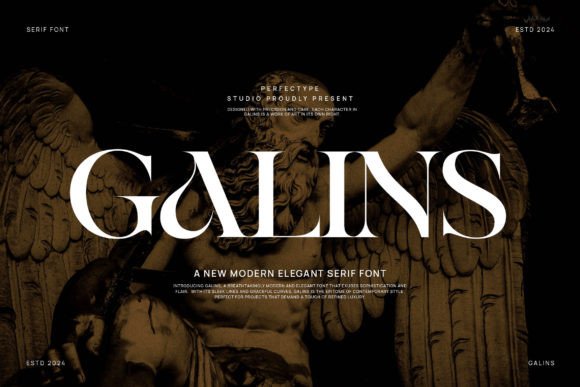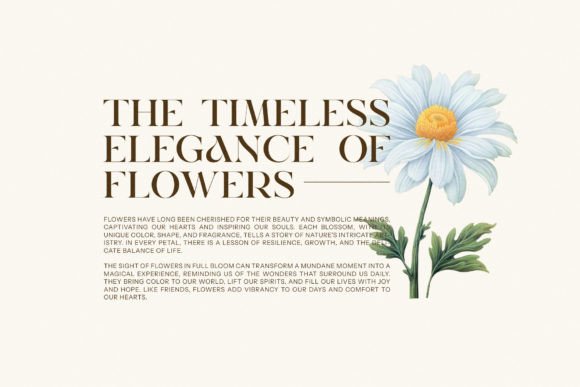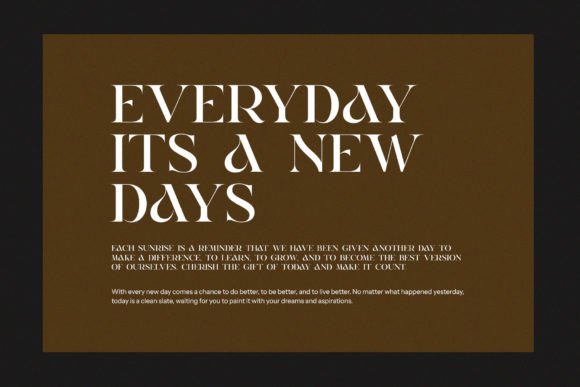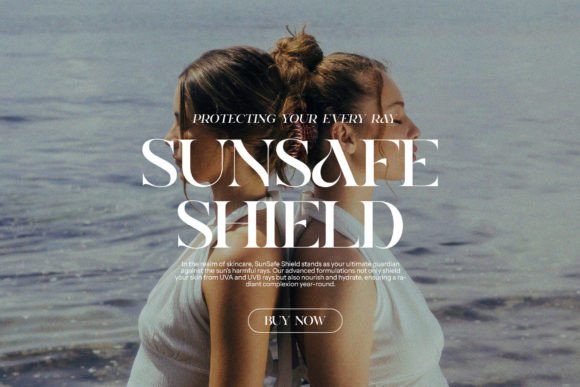
Galins Font: Elegant Serif Typography for Modern Logo Design & Branding
About the Galins Font
Let us introduce you to Galins Font, where timeless design meets modern craftsmanship. Galins is a modern elegant serif font. This type of font is very suitable for your various needs such as branding projects, logos, social media posts, advertisements, labels, product packaging, photography, wedding designs, watermarks, invitation product designs, stationery, and any project, created at a high level legibility.
Galins excels in applications requiring sophistication and readability at larger sizes. Headlines, logos, and short-form text such as invitations or social media captions are ideal. Its elegance works particularly well for branding projects related to luxury goods, high-end fashion, or sophisticated events. Avoid using Galins for body text or extended paragraphs; its refined serifs can hinder readability in smaller sizes.
Pairing Galins effectively depends on the desired emphasis. For a classic feel, consider a clean sans-serif like Helvetica or Open Sans. To enhance its elegance, a delicate script font adds a touch of luxury. For a more contemporary feel, a geometric sans-serif can create a strong, modern contrast.
Galins projects a refined, elegant, and slightly formal personality, ideal for conveying quality and sophistication. It’s versatile enough for varied applications but benefits from careful consideration of its inherent qualities.
Galins Font Usage Examples
Galins Font Example